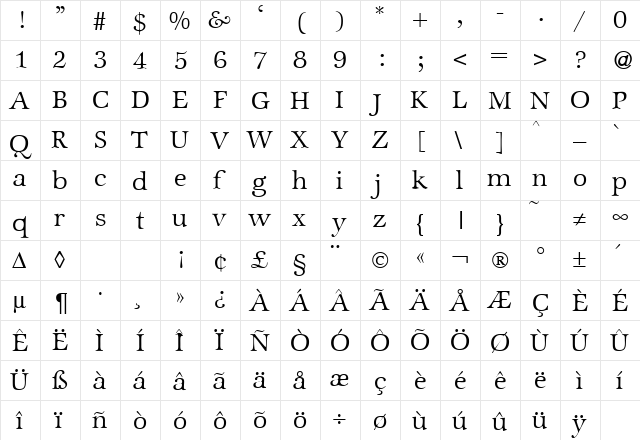
ZabriskieInternationalLight Regular
Design Context for ZabriskieInternationalLight Typeface
ZabriskieInternationalLight takes a measured approach to typography — its balanced proportions and neutral character make it a reliable workhorse for both digital and print work. Its slender proportions lend an understated elegance to any composition.